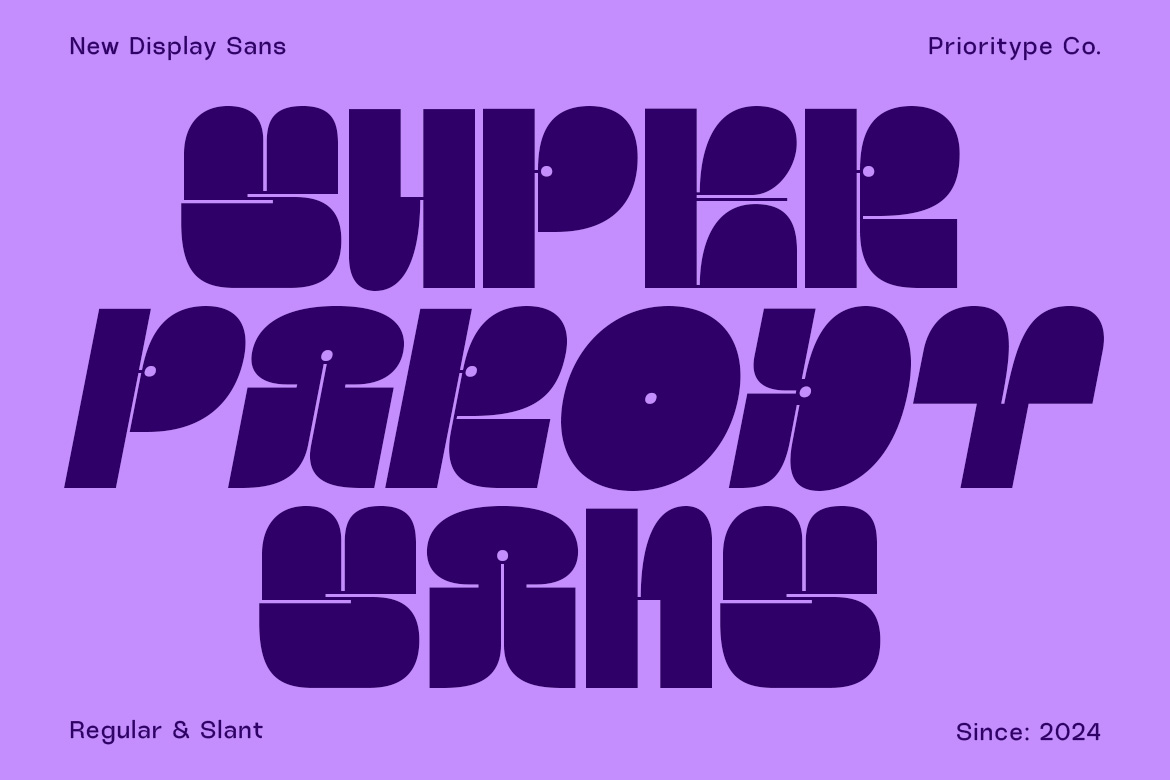
Super Parody – Retro Display Sans
Super Parody is a bold display font that seamlessly blends retro charm with a modern edge. Featuring two versatile styles (Regular and Slant) it offers flexibility for a wide range of creative projects. With its unique contrasts and playful design, Super Parody is perfect for branding, posters, and striking headlines. Whether you’re going for vintage-inspired aesthetics or a contemporary vibe, this font adds a distinctive and dynamic touch.